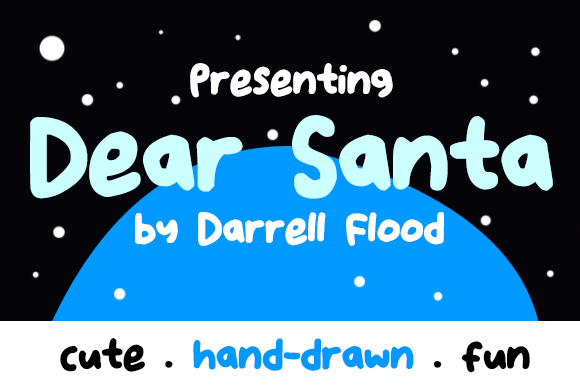
Dear Santa Font
About Dear Santa Font
A cute, casual hand-drawn font in a child-like fat marker style. This lighthearted style is perfect for children’s oriented designs, yet retains legibility for implementation in various style scapes.